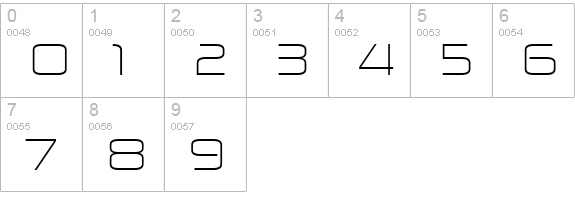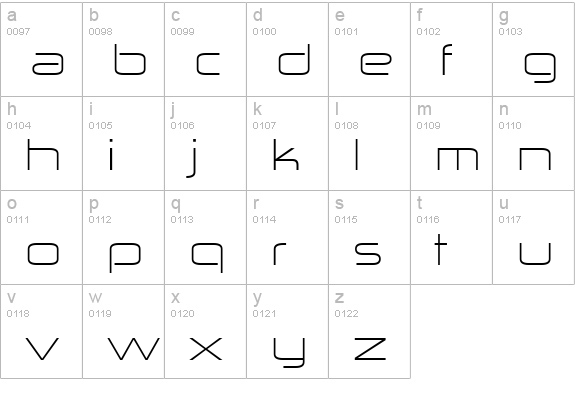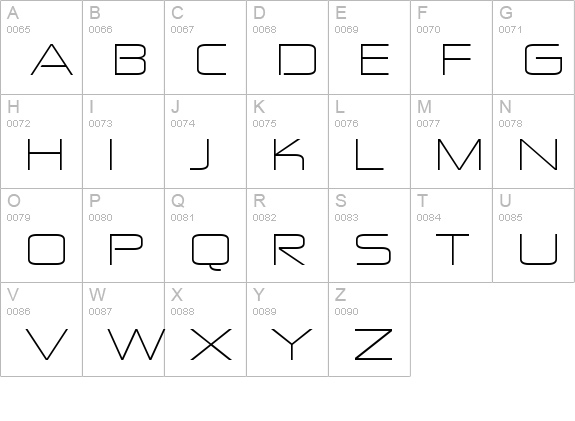
Zekton ExLt font is a modern and stylish typeface that exudes strength and sophistication. With its sleek lines and sharp edges, this font is perfect for creating eye-catching designs that demand attention. The bold and futuristic look of Zekton ExLt makes it ideal for projects that require a contemporary touch. What makes Zekton ExLt even more appealing is that it is available for free download at FontsMarket.com. This means that you can use this striking font in your projects without having to worry about any additional costs. Whether you're working on a logo, poster, or website design, Zekton ExLt is sure to make a bold statement and leave a lasting impression. Download it today and elevate your designs with this impressive typeface.